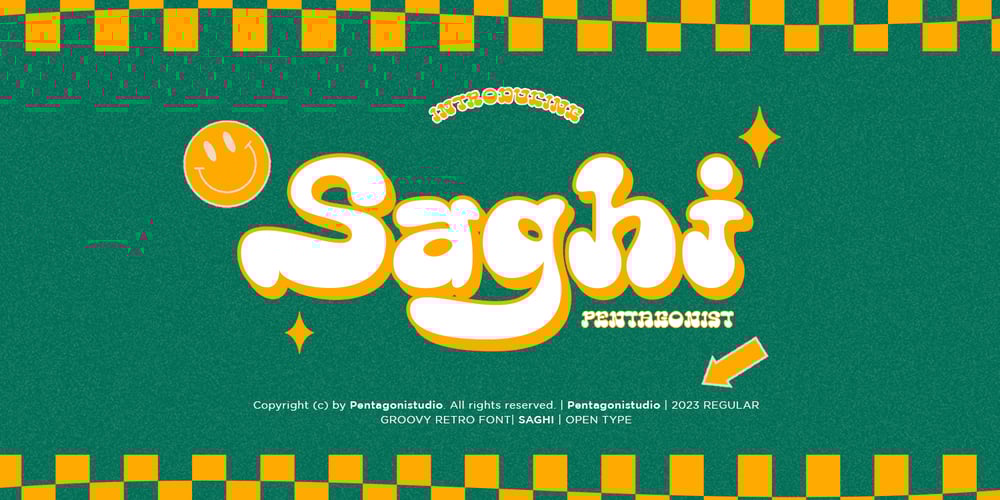
Saghi PS Font Family was designed by Burhan Adiatma and published by pentagonistudio. Saghi PS contains 2 styles and family package options. Saghi Is A Groovy Display Character Inspired By Retro and Vintage Style.Font Features : Saghi ( Open Type ) Saghi ( True Type ) Saghi ( Web Font ) SOFTWARE REQUIREMENTS :Fonts and alternate : No special software required they may be used in any basic program /website apps that allows standard fonts That’s it folks! You can go ahead and get cracking :)Follow My Shop For Upcoming Updates Including Additional Glyphs And Language Support. And Please Message Me If You Want Your Language Included or If There Are Any Features or Glyph Requests, Feel Free to Send me A Message. Have a Good Day !